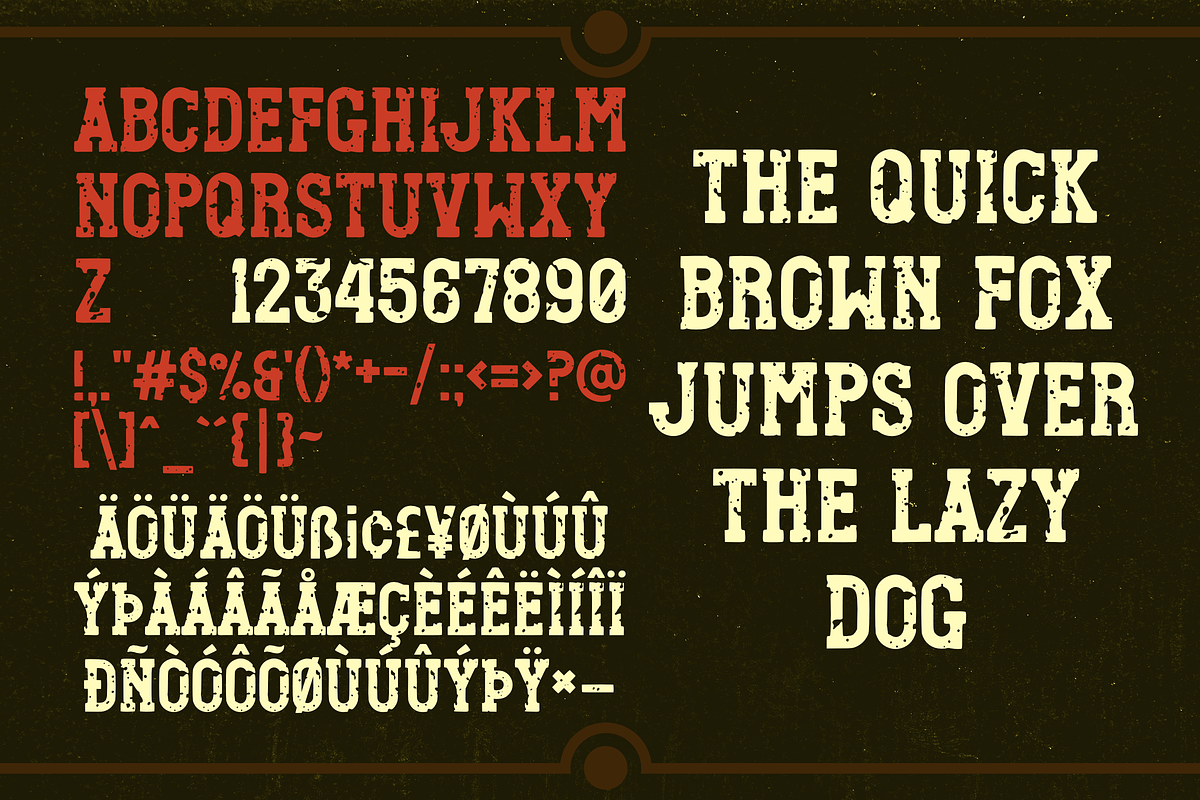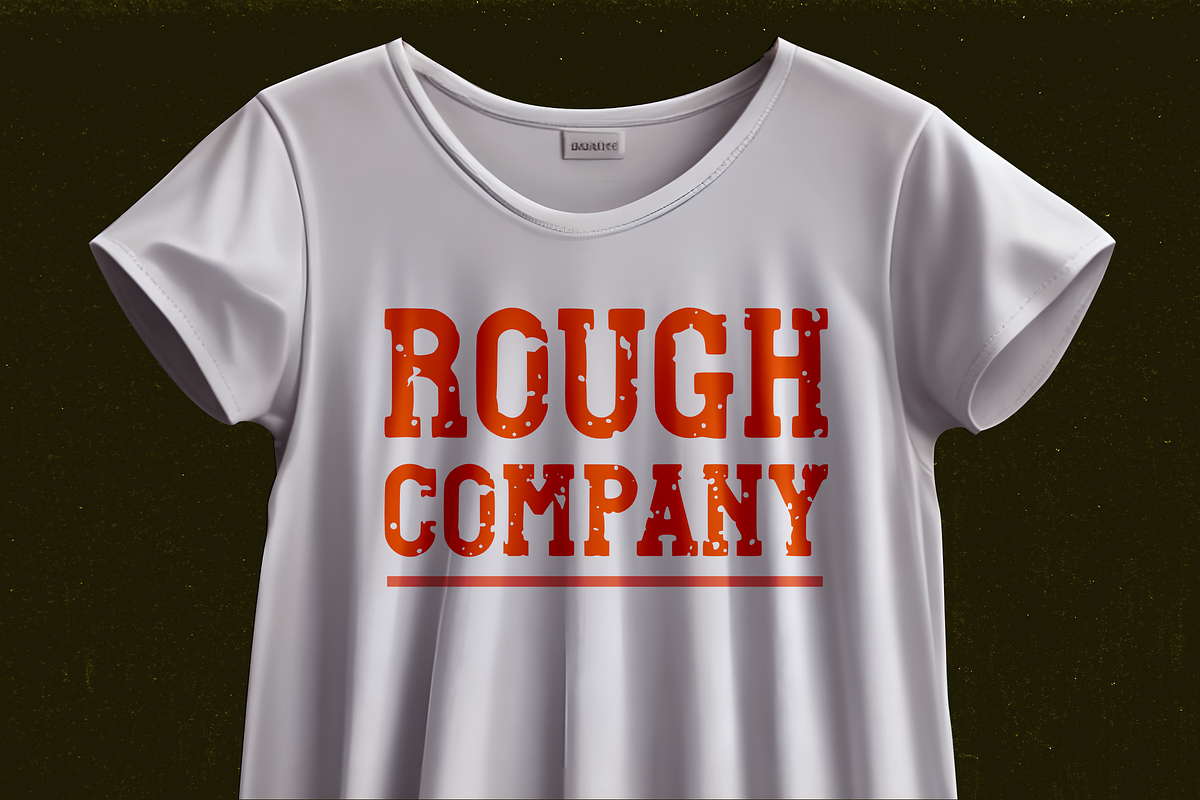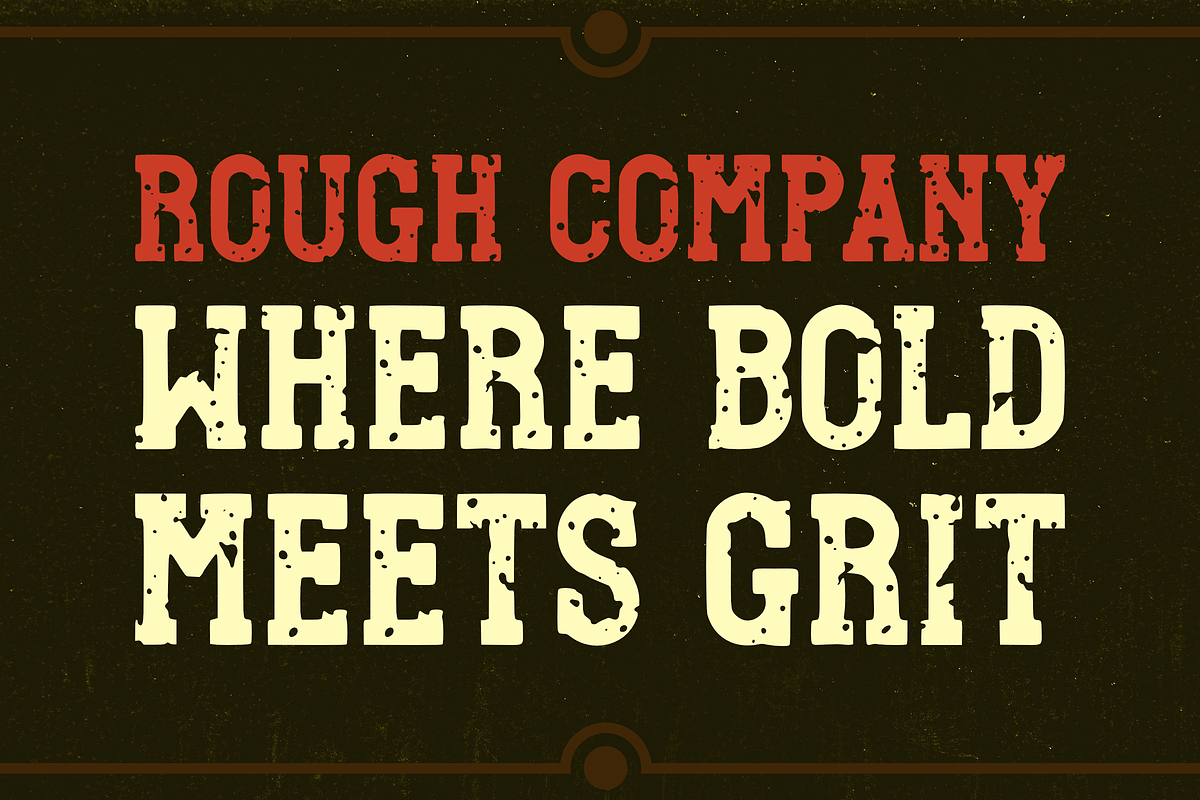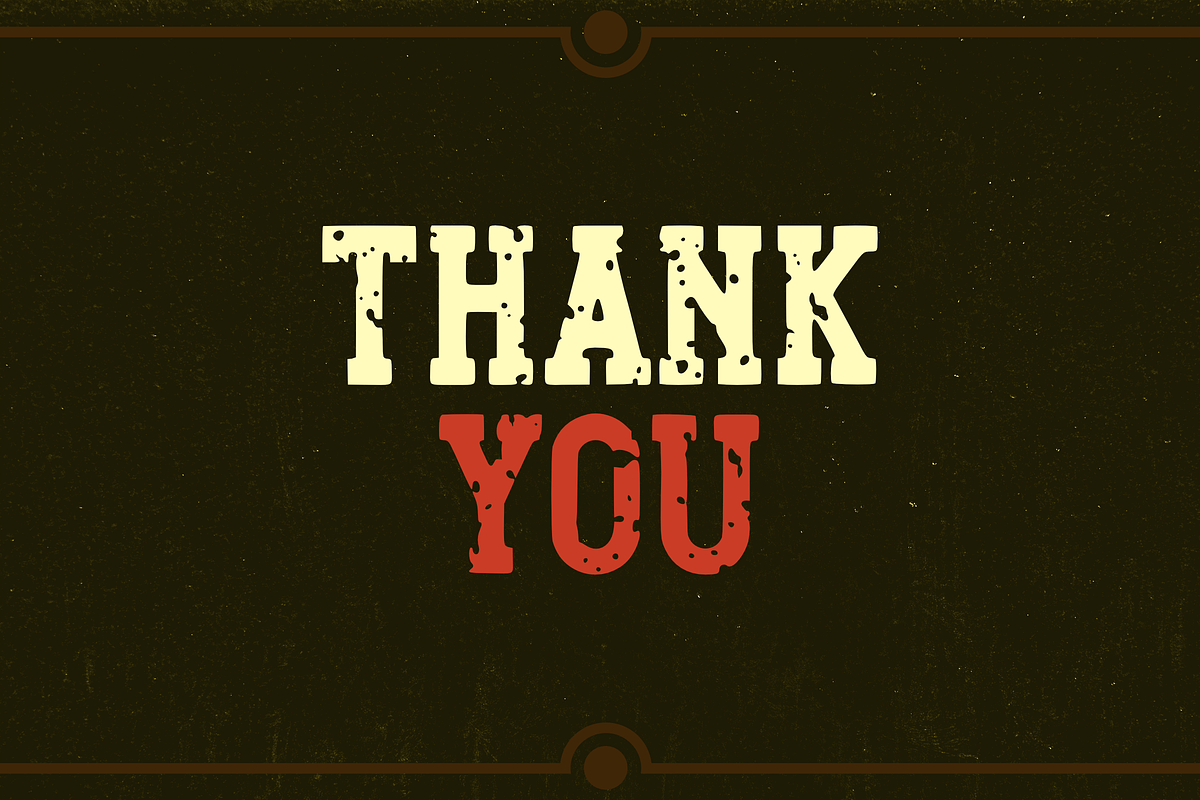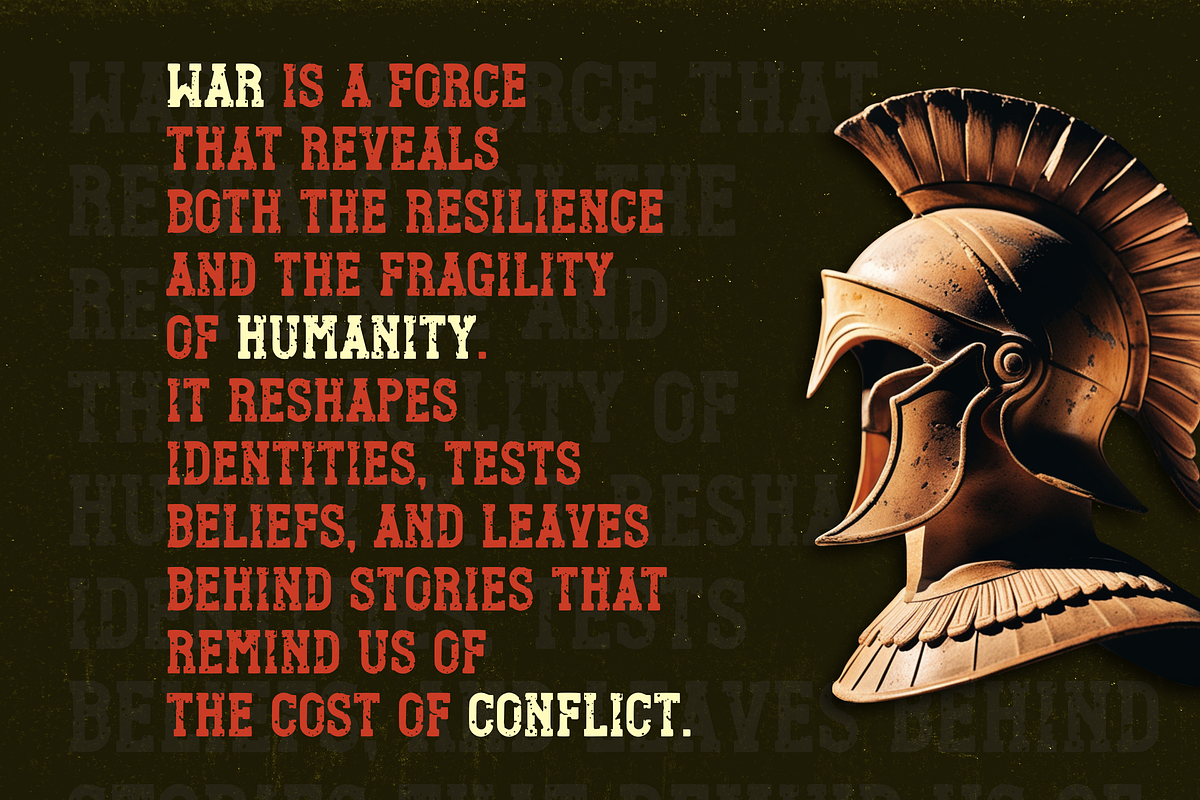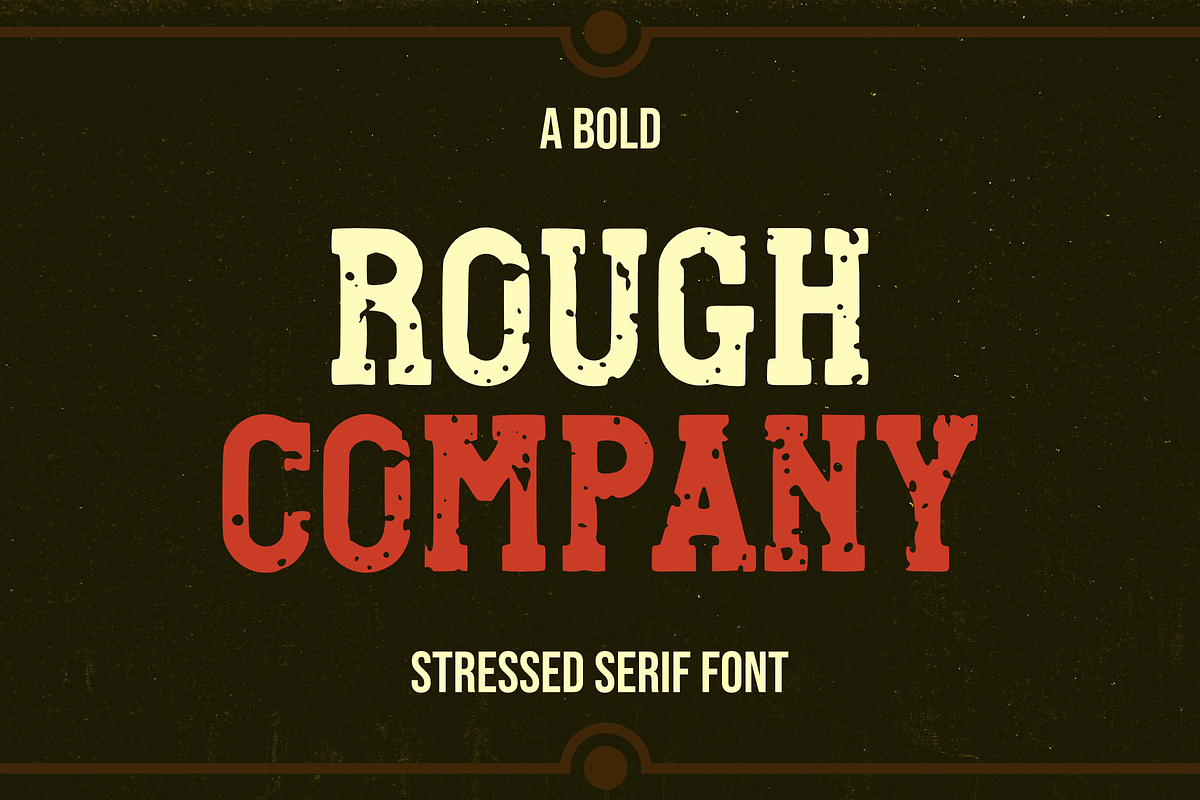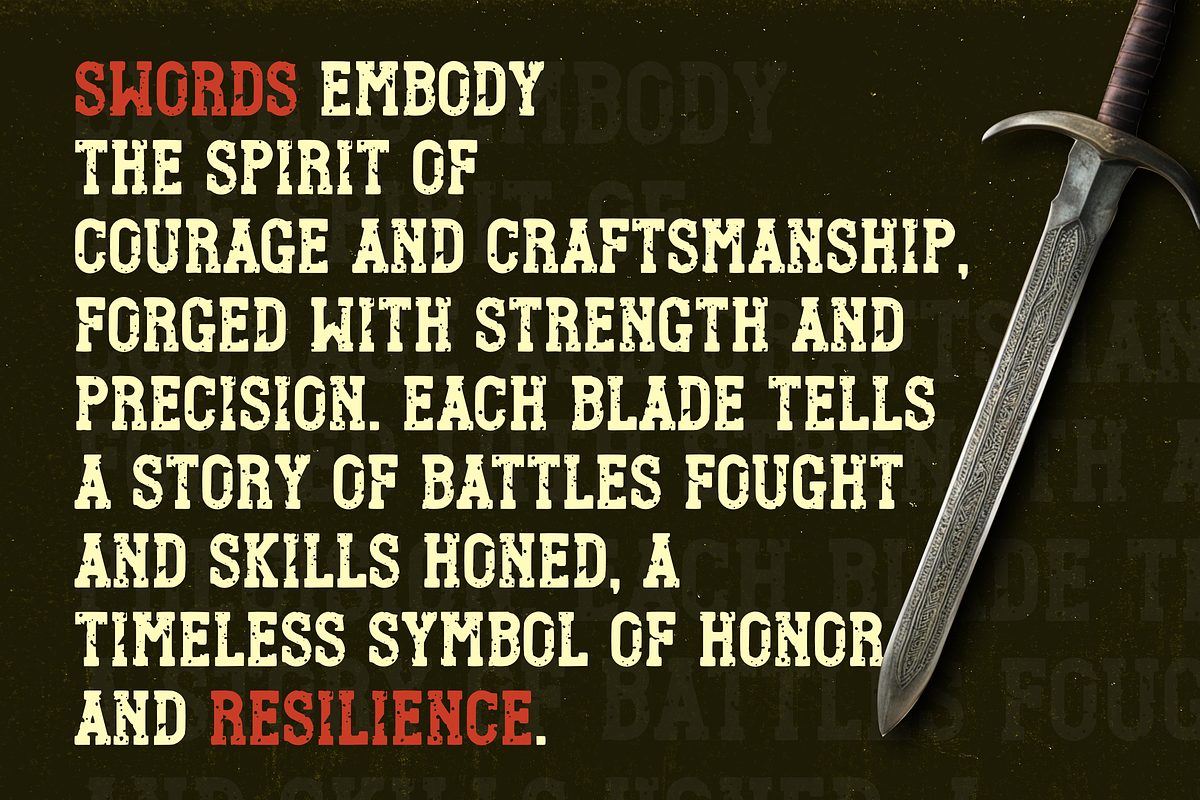
Rough Company
Rough Company is a bold serif font with rugged, uneven edges and a textured, gritty finish. Its raw, distressed design exudes strength and character, making it perfect for bold headlines, edgy branding, or designs that embrace a rough, industrial aesthetic.